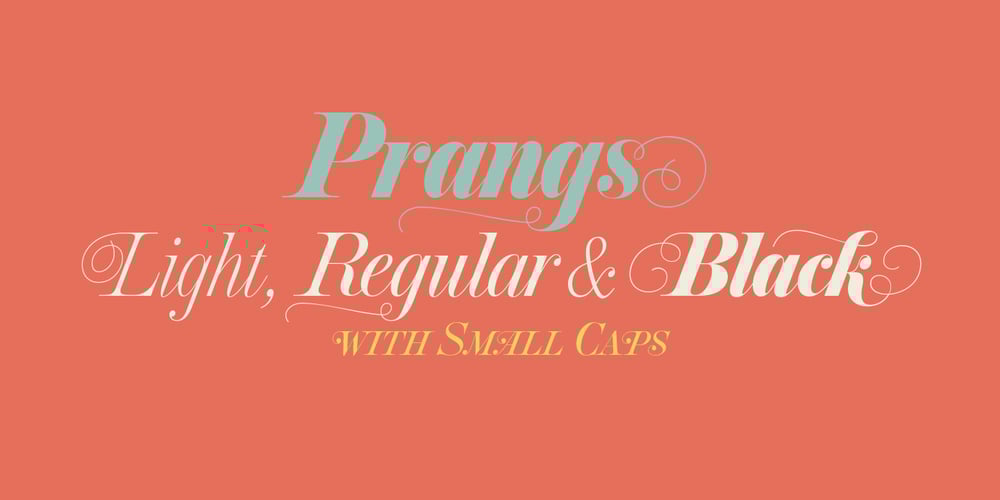
Prangs
Prangs font
Prangs Font Family was designed by Alejandro Paul and published by Sudtipos. Prangs contains 3 styles and family package options. The late-19th-century Prussian-American printer and publisher Louis Prang, the “father of the American Christmas card”, was well-known for his efforts to improve art education in the United States. He published many instructional books and even founded a training school for art teachers. One of the books he published included a series of alphabets for sign painters, lithographers, illuminators, architects and civil engineers. There was nothing truly original there — in the book’s preface, Prang says that the alphabets were “based on foreign forms and adapted for American taste”. The one alphabet that caught my attention in that book was one simply called “Italic”. It’s a high- contrast modern, a Didone really, but with an interesting little twist: the lowercase is almost entirely connected, which makes for an interesting mix of modern typography and classic calligraphy. That stuff is right up my alley now. Whenever my eyes happen on a modern, it’s easy, even almost impulsive for me to envision swashes coming out of serifs and terminals. The caps melt and the minuscules dance with them. And so I brought my vision to life. Prangs is an italic set of three weights, each containing more than 1400 glyphs with plenty of OpenType features and Latin language support. This set celebrates the convergence of three centuries of fancy display alphabets. These fonts should work wherever moderns are used to elevate and scripts are used to appeal — namely today’s branding, packaging and glossy publications.